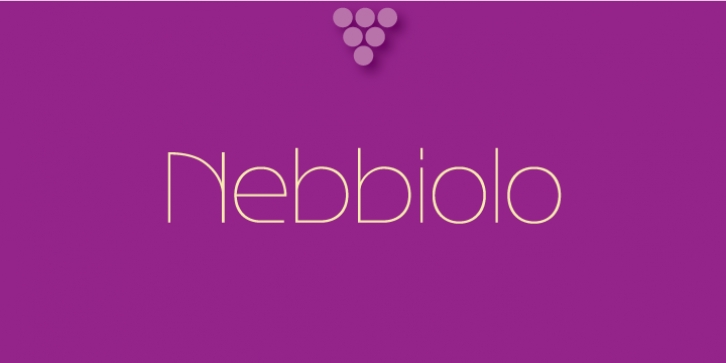
A single-stoked gothic font with UltraLight, Light, DemiBold, Bold and Extra Bold weights.
Usage recommendations: Captions, packaging, cards, posters, ads, book jackets, manuals, menus, fashions.